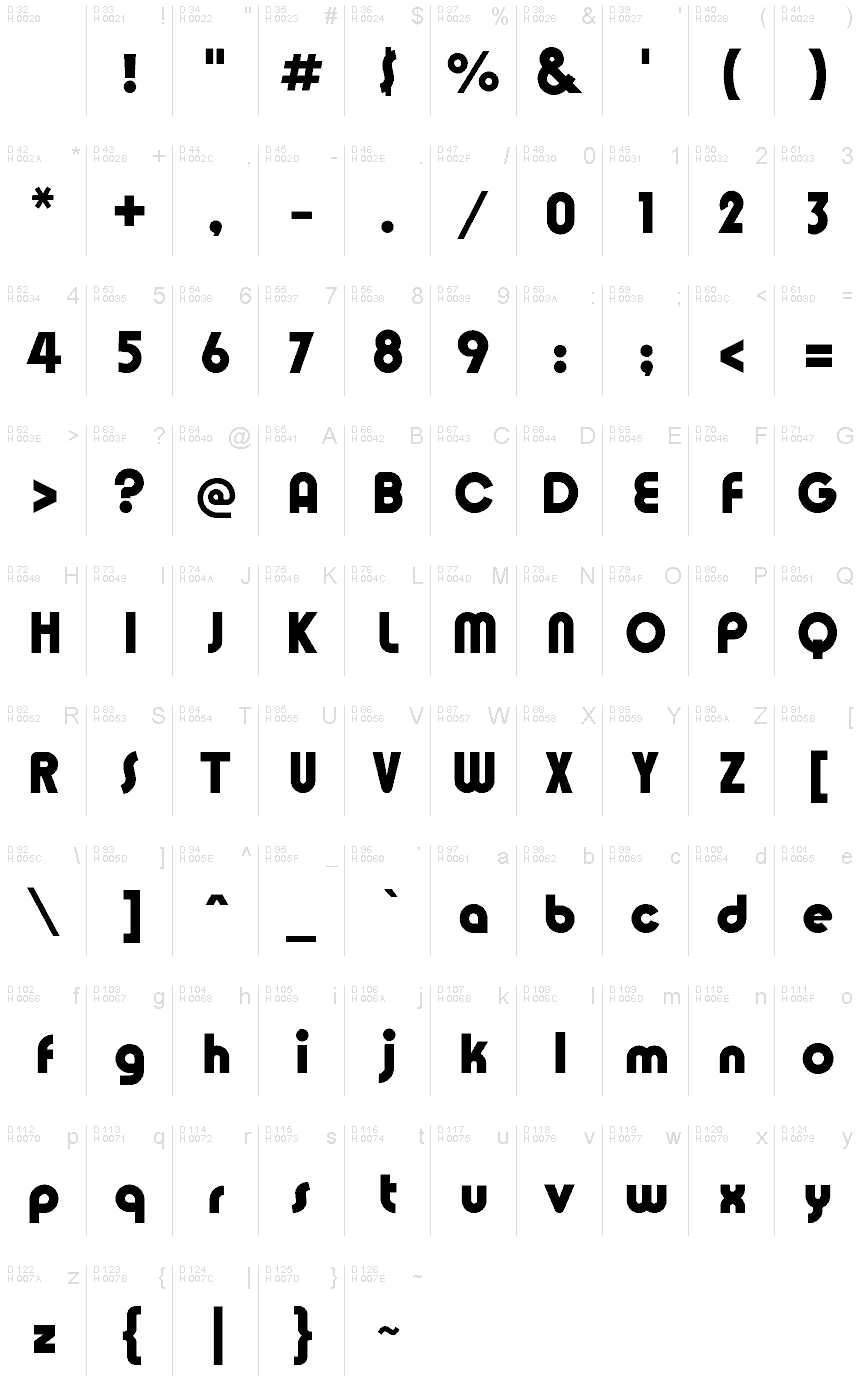
Insight Issue New
Insight Issue New font is a bold sans serif typeface designed by Galdino Otten Fonts. With an aesthetic inspired by retro elements, the font features geometric shapes with a minimalistic influence while emphasizing the modern digital feel. Its distinctive look excels in sharpening attention and creating unique eye-catching artworks.
The free sans serif font fits brand identities, titles, posters, packaging design, labels, social media posts captions or ads copies, and more. Whatever the environment you choose to apply it in—the professional or casual one—it never fails to stand out.